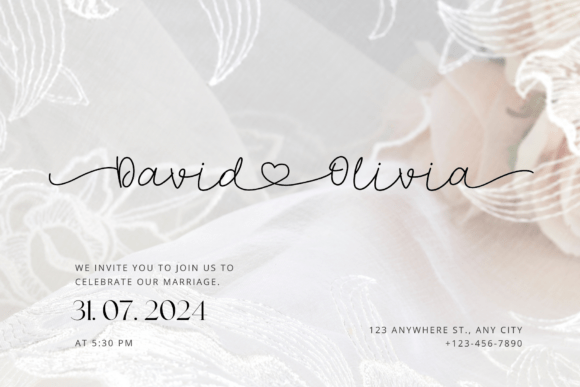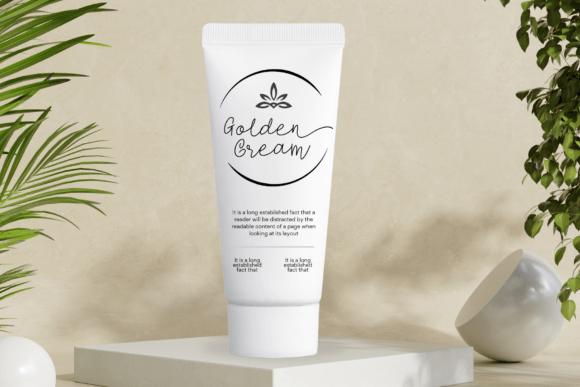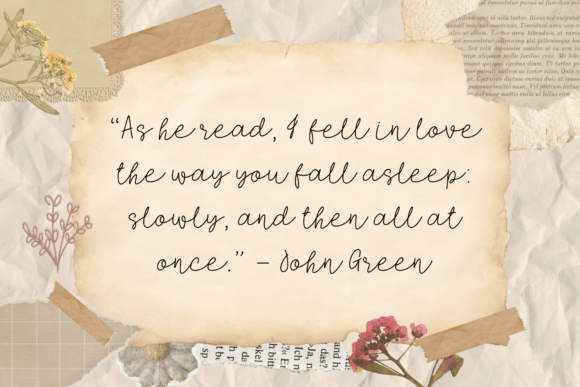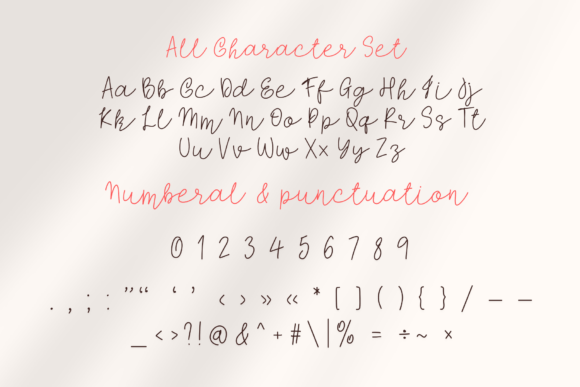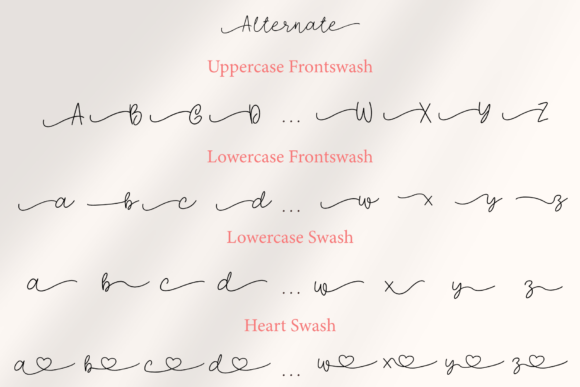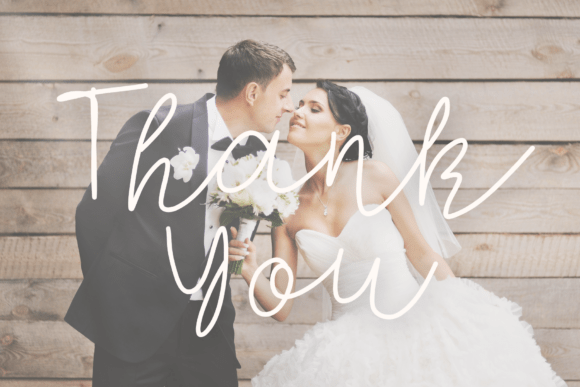
Introduction to Love Ever Font
Have you ever sat at your desk, staring at a blank canvas, trying to find the perfect words to express your love and gratitude to someone special? For many of us, the right font can make all the difference. That’s where the Love Ever Font comes in – a beautiful Valentine script handwritten font that embodies playfulness and authenticity. Whether you’re working on a creative project, designing a logo, or simply need a high-quality font for your next blog post, the Love Ever Font is the perfect design resource.
As a designer, you know how valuable it is to have access to a wide range of fonts that can elevate your work and make it stand out. And with the Love Ever Font, you’ll have endless possibilities for creating stunning designs, from invitations and greeting cards to planners and photo albums. Plus, with its transparent background, you can easily layer it over any design element to create a unique and eye-catching look.
Key Features of Love Ever Font
- High-quality, hand-drawn design resource ideal for creative projects, including invitations, posters, and social media graphics.
- Features a unique, elegant script style with intricate details and subtle flair, perfect for adding a touch of romance and sophistication to your designs.
Honest Review: Love Ever Font
As a designer, I’m always on the lookout for high-quality design resources to enhance my creative projects. The Love Ever Font caught my eye, and I decided to give it a try.
- ✨ Beautiful, elegant script style that adds a touch of romance to any design
- ✨ High-quality vector graphics that can be scaled up or down without losing any details
- ✨ Transparent background option, making it easy to customize and integrate into any design
- ⚠️ Limited character set, which may not be suitable for long text-based projects
- ⚠️ Not ideal for bold or sans-serif font styles, as it’s designed for elegant, cursive scripts
Overall, the Love Ever Font is a great addition to any designer’s toolkit. Its unique style and high-quality graphics make it a valuable resource for creative projects. While it may have some limitations, it’s definitely worth considering for your next design project.
The Love Ever Font is a high-quality design resource perfect for creative projects. Its unique style and versatility make it an ideal addition to any design.
The Love Ever Font is perfect for:
- Wedding invitations and decorations.
- Business cards and marketing materials.
- Personal projects and creative endeavors.